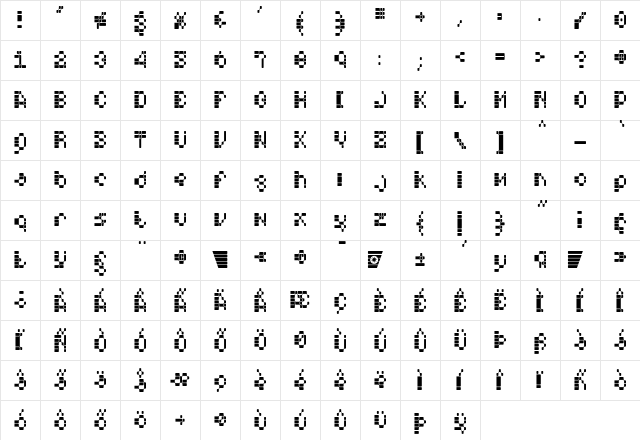
HypercellRNA Regular
Design Context for HypercellRNA Typeface
HypercellRNA takes a measured approach to typography — its balanced proportions and neutral character make it a reliable workhorse for both digital and print work.